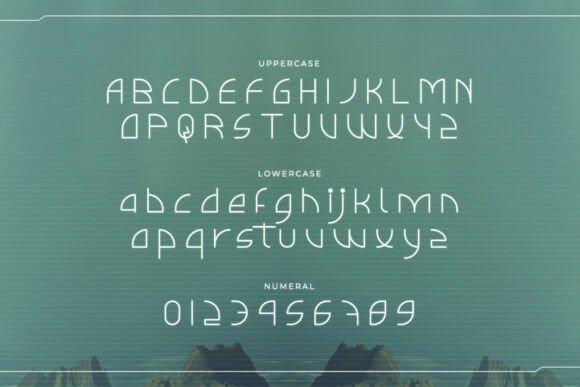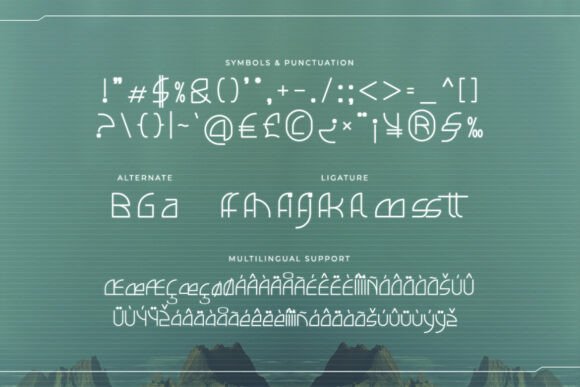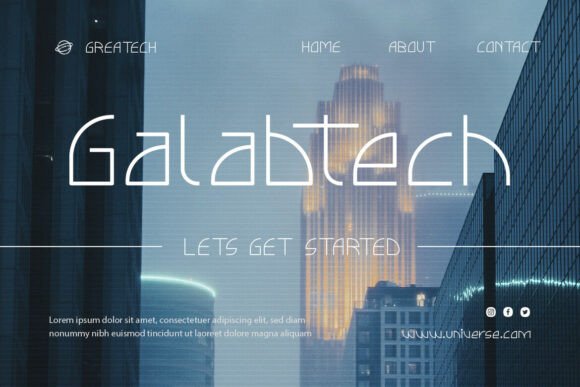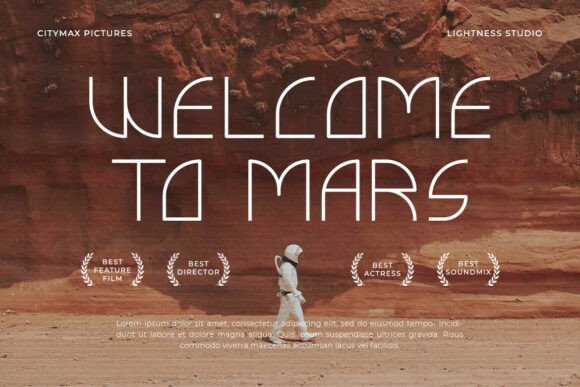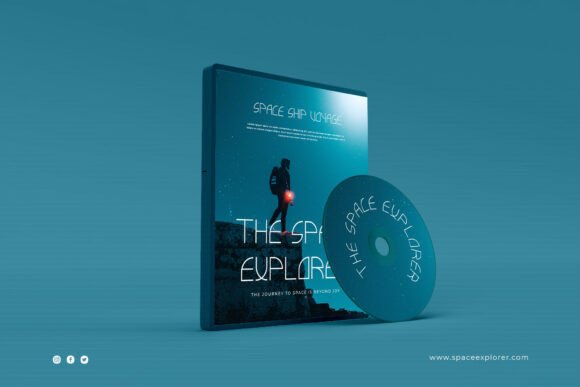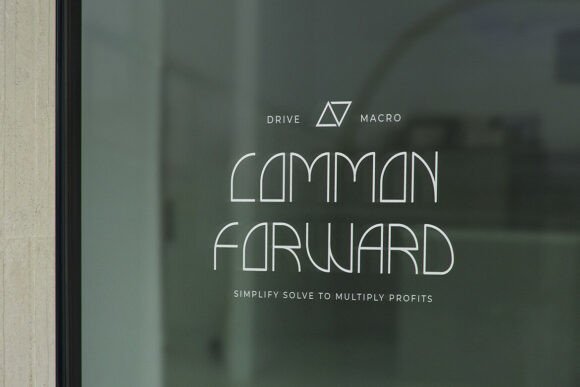
Introduction to Lost in Astra Font
Lost in Astra is a futuristic space-inspired display typeface built with monoline strokes and geometric construction.
The letterforms feature rounded corners, open shapes, and sci-fi influenced cuts that create a clean technological atmosphere The uppercase and lowercase characters maintain a consistent stroke weight, giving the typeface a minimal and modern rhythm.